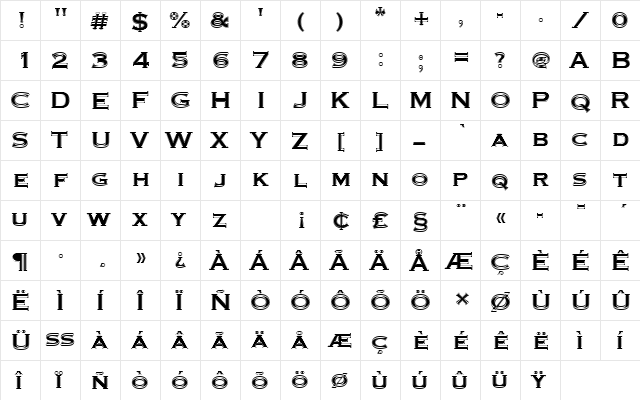
CopperplateTBolIn1 Regular Font Preview
CopperplateTBolIn1 Regular
CopperplateTBolIn1 Regular Font Details
Design Context for CopperplateTBolIn1 Typeface
CopperplateTBolIn1 offers clean, dependable letterforms without strong stylistic allegiance, making it a practical choice for designers who need flexibility.